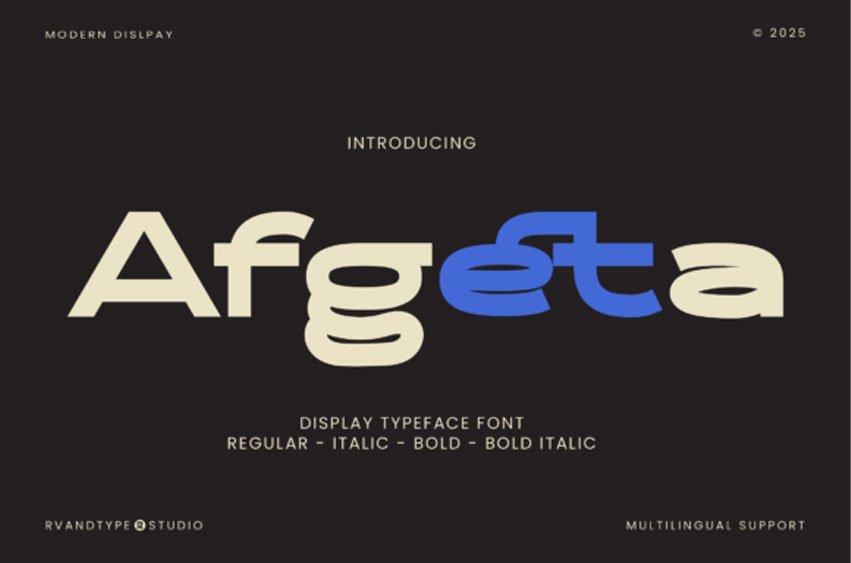
Afgeta Font Immerse yourself in the sleek, forward-thinking world of Afgeta, a display sans serif typeface. Afgeta marries elements of sportiness and minimalism, creating a futuristic aesthetic that achieves a perfect balance between polish and pizazz.
Chiseled with precision, this font manifests a sharp elegance, shaping up your creative endeavors with a modernist touch, to bring your projects into brilliant focus. Afgeta is more than just a font, it’s the key to transforming your vision into an aesthetic masterpiece.